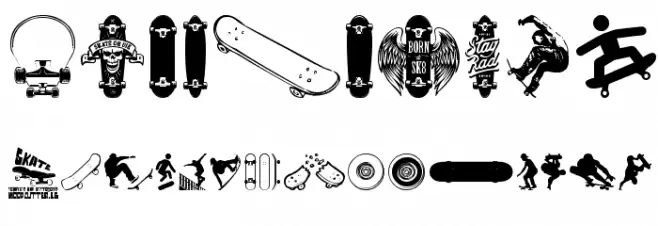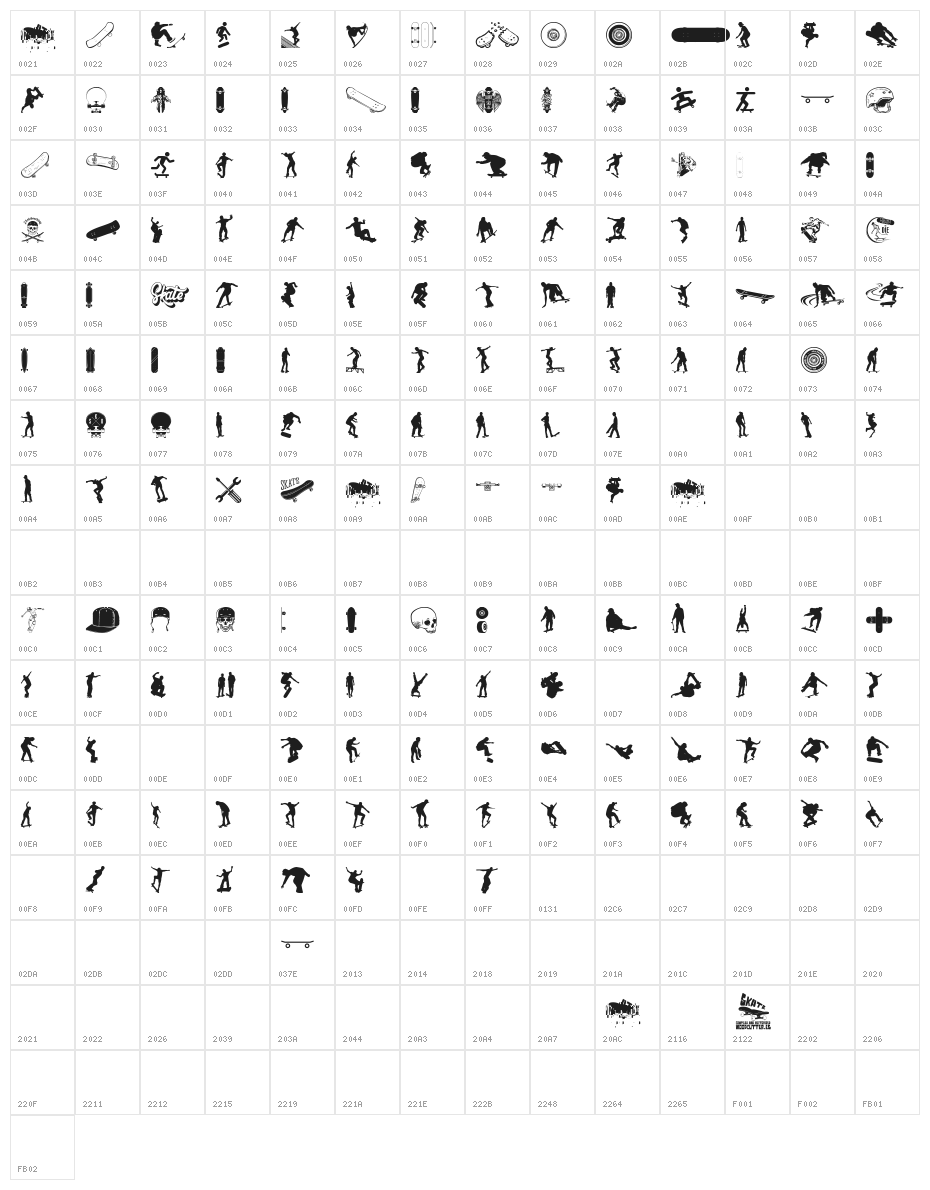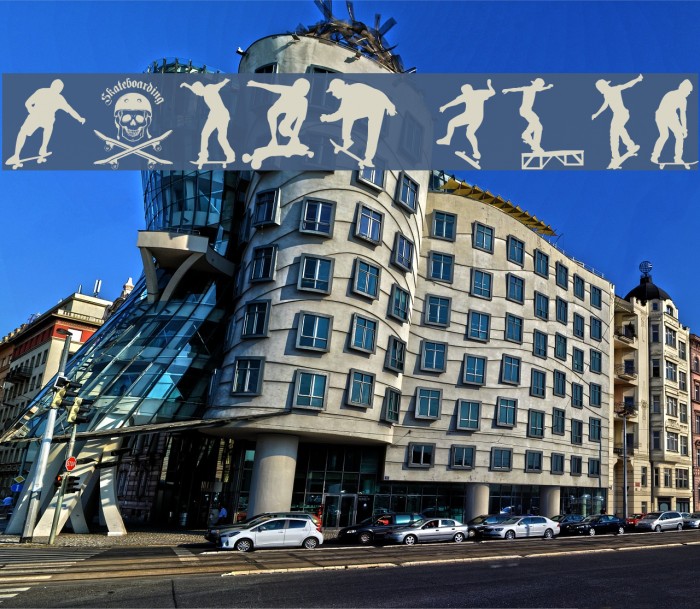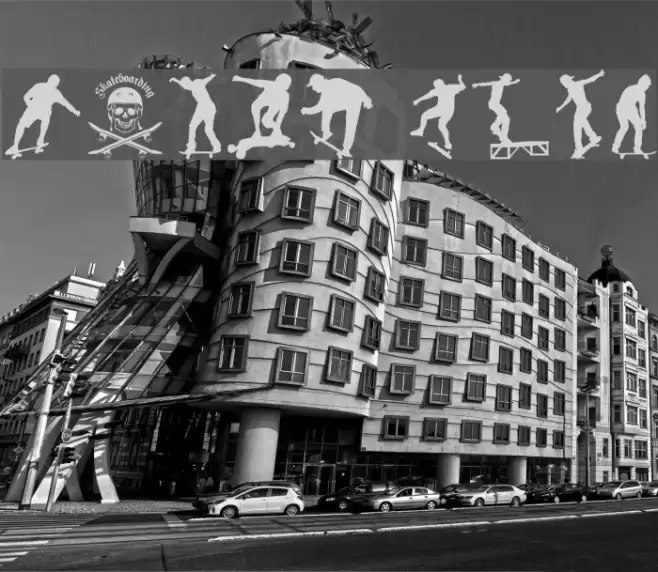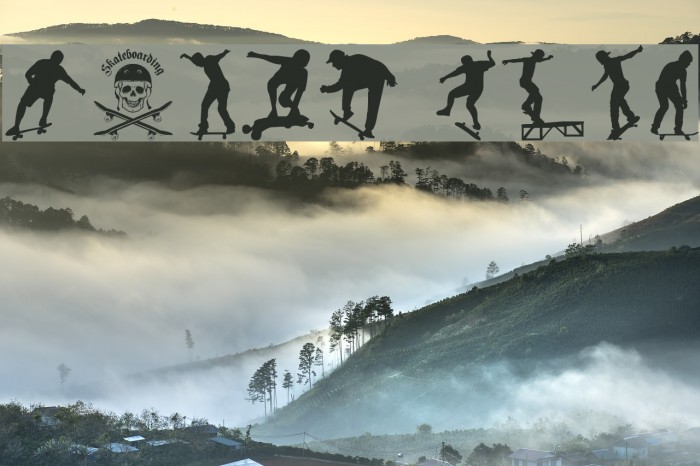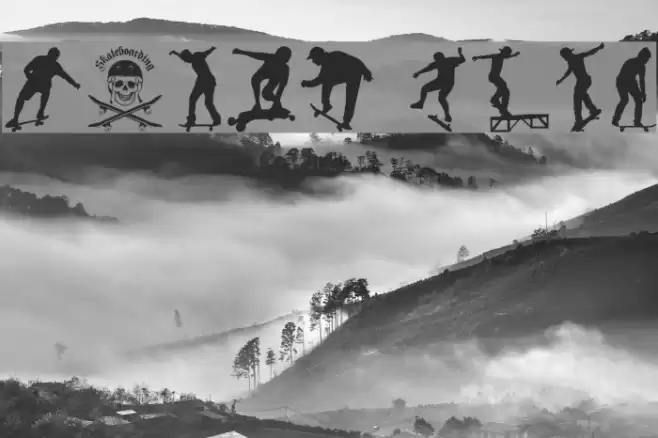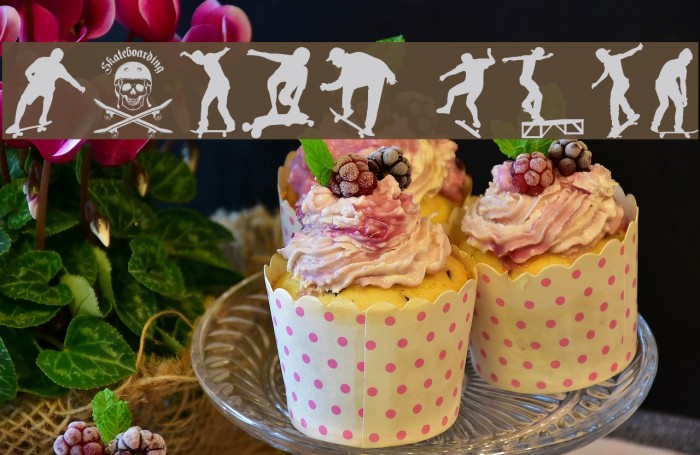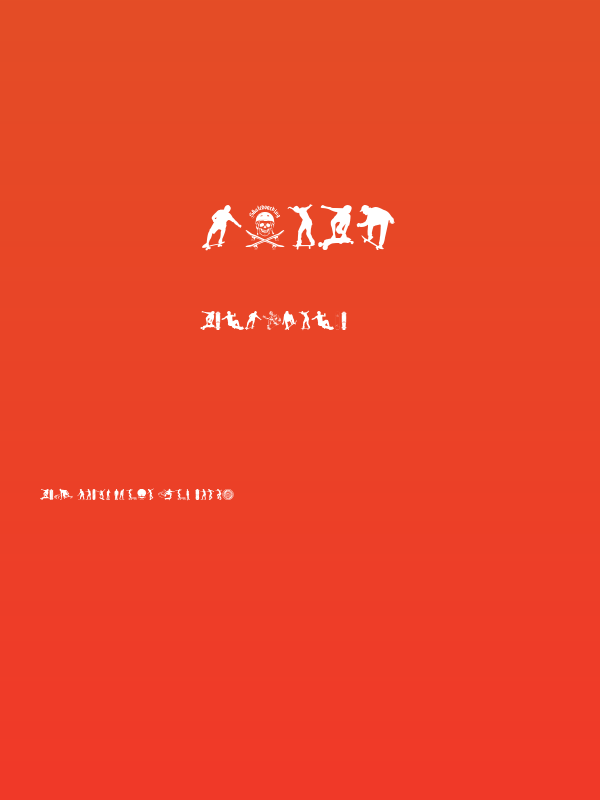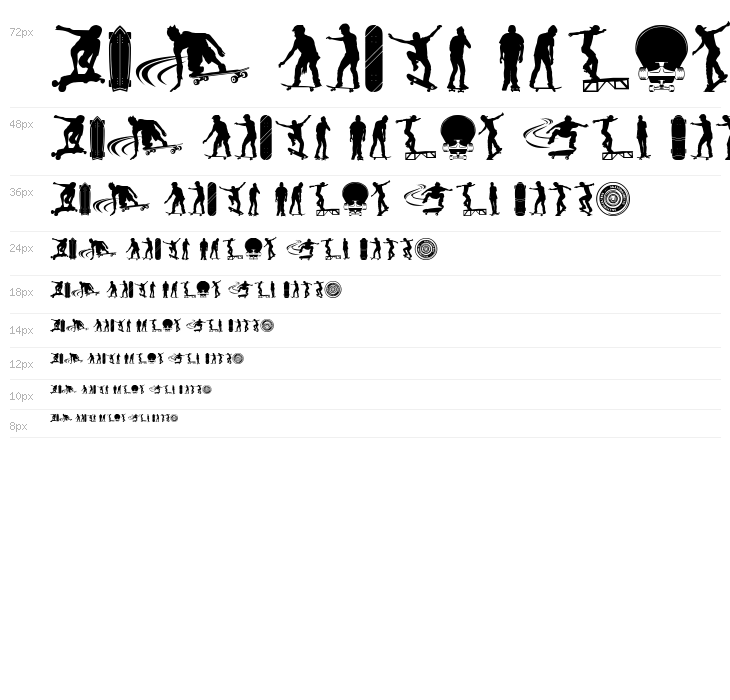
SKATE Font
SKATE Description
A decorative display font composed of skateboarding silhouettes, skateboard illustrations, and skate-themed icons. Each character is represented by a unique skateboarding pose, skateboard, or related graphic, making it highly illustrative and thematic.
Overall StyleDecorative, Urban, Thematic
Use CaseLogos, Headlines, Posters, Themed Graphics
Proposed ProjectsPosters, event flyers, youth apparel, skate shop branding, extreme sports graphics, stickers.